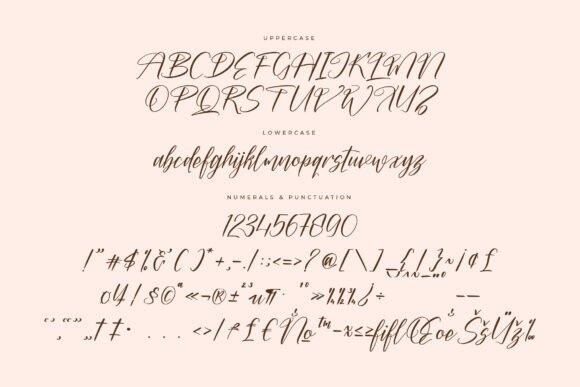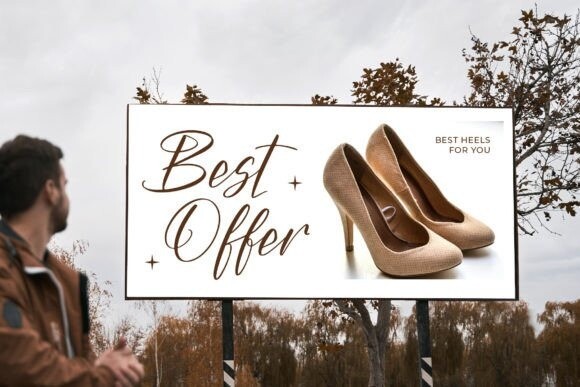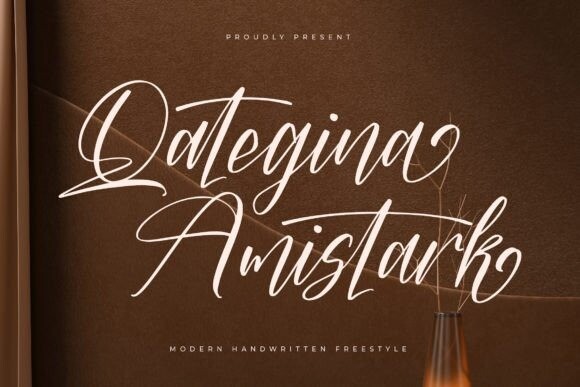
Qategina Amistark Font
Qategina Amistark Font is a dazzling handwritten script font that radiates elegance and charm. Its graceful curves and intricate details evoke a sense of sophistication, making it perfect for wedding invitations, branding, and other upscale designs. With its enchanting style, this font adds a touch of luxury to any project.